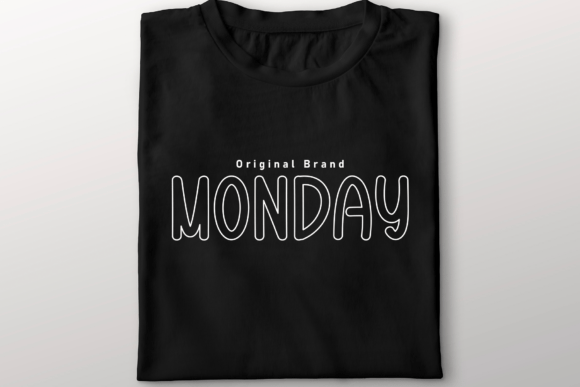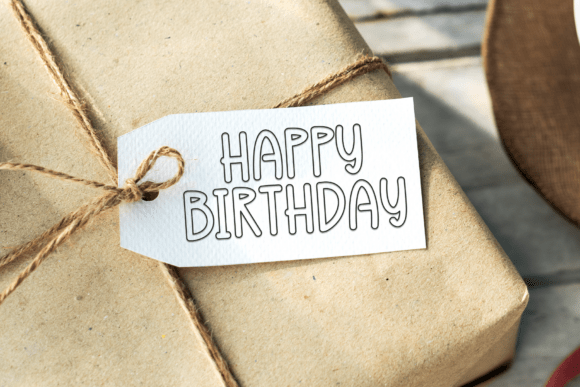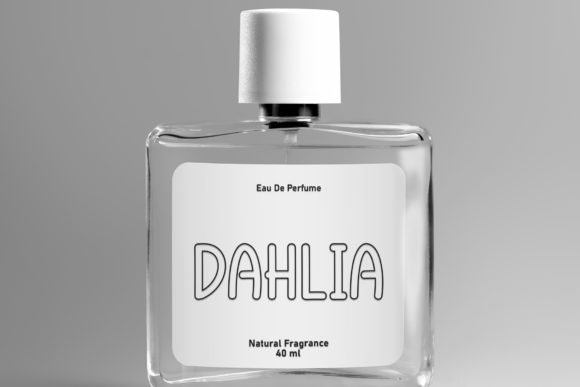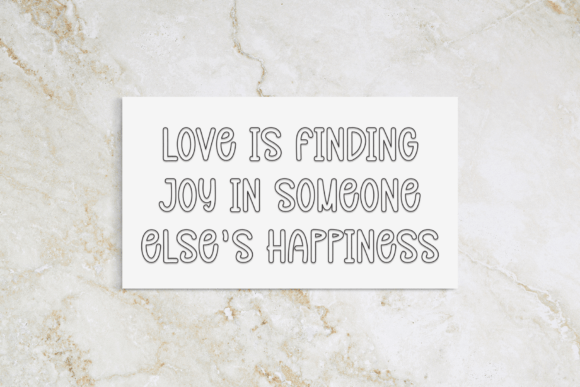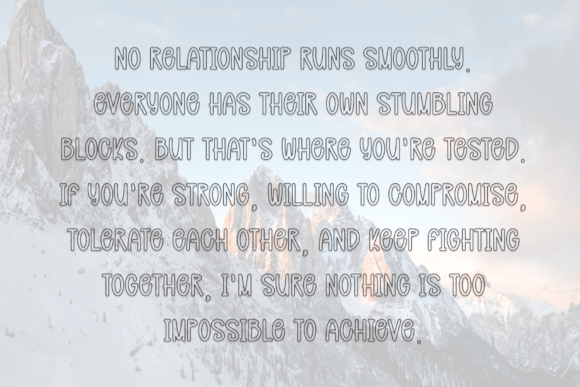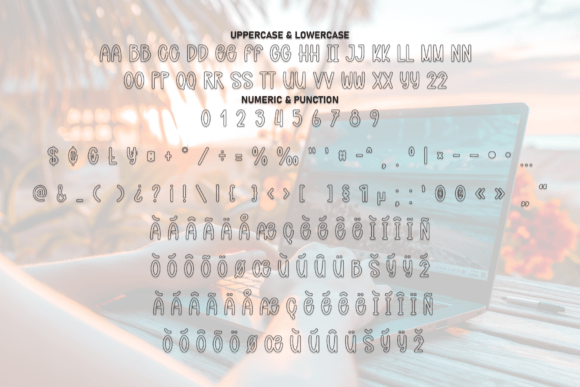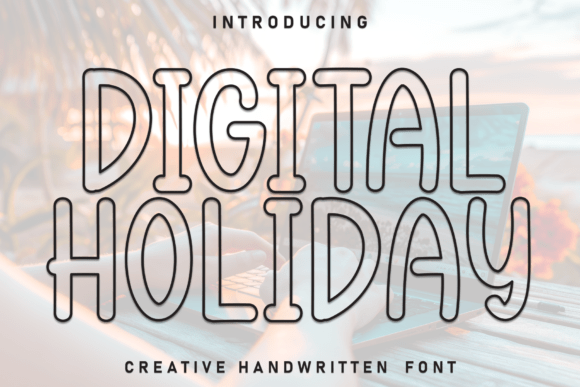
Introducing Sweet Handwritten Display: The Digital Holiday Font that Adds a Touch of Whimsy to Your Designs
Are you tired of using the same old fonts for your holiday designs? Do you want to add a touch of playfulness and user-friendliness to your projects? Look no further than Sweet Handwritten Display, a digital holiday font that is sure to captivate your audience. In this article, we’ll dive into the magnetic charm of Sweet Handwritten Display and explore how it can elevate your designs from ordinary to extraordinary.
The Beauty of Simplicity
Sweet Handwritten Display is a rare blend of playfulness and user-friendliness, crafted into a font that is both simple and elegant. Its simplicity blooms in every stroke and curve, making it the perfect choice for designers who want to add a touch of whimsy to their projects. Whether you’re creating wedded bliss invitations, holiday greetings, or any other project that requires a sprinkle of light-hearted charm, Sweet Handwritten Display is the perfect font for the job.
Radiating an Inviting Ambiance
One of the standout features of Sweet Handwritten Display is its ability to radiate an inviting and delightful ambiance. This font has a way of making your designs feel warm and welcoming, kindling riveting dialogues and leaving an enduring impression on your audience. Whether you’re designing for the holiday season or simply want to add a touch of personality to your projects, Sweet Handwritten Display is the perfect choice.
Empowering Your Designs
Sweet Handwritten Display is more than just a font – it’s a design tool that empowers you to create immersive pieces that engage and delight your audience. With its playful and user-friendly design, this font is perfect for designers who want to add a touch of personality to their projects. Whether you’re creating social media graphics, blog posts, or marketing materials, Sweet Handwritten Display is the perfect choice.
Perfect for Holiday Designs
The holiday season is just around the corner, and Sweet Handwritten Display is the perfect font for your holiday designs. Whether you’re creating Christmas cards, Thanksgiving invitations, or New Year’s Eve party flyers, this font is sure to add a touch of whimsy and fun to your projects. Its playful design and inviting ambiance make it the perfect choice for holiday designs that require a touch of personality.
Why Choose Sweet Handwritten Display?
So why choose Sweet Handwritten Display over other fonts? Here are just a few reasons why this font stands out:
- Unique and playful design: Sweet Handwritten Display has a unique and playful design that is sure to capture your audience’s attention.
- User-friendly: This font is easy to read and use, making it perfect for designers of all skill levels.
- Versatile: Sweet Handwritten Display can be used for a wide range of projects, from holiday designs to social media graphics.
- High-quality: This font is crafted with high-quality design principles, ensuring that it looks great in any project.
Tips for Using Sweet Handwritten Display
Here are a few tips for using Sweet Handwritten Display in your designs:
- Use it sparingly: While Sweet Handwritten Display is a beautiful font, it can be overwhelming if used too much. Use it sparingly to add a touch of personality to your designs.
- Pair it with other fonts: Sweet Handwritten Display pairs well with other fonts, such as sans-serif fonts. Experiment with different font combinations to find the perfect look for your project.
- Experiment with colors: Sweet Handwritten Display looks great in a variety of colors. Experiment with different colors to find the perfect look for your project.
In conclusion, Sweet Handwritten Display is a digital holiday font that is sure to add a touch of whimsy and fun to your designs. Its unique and playful design, user-friendly interface, and versatile nature make it the perfect choice for designers who want to create immersive pieces that engage and delight their audience. Whether you’re designing for the holiday season or simply want to add a touch of personality to your projects, Sweet Handwritten Display is the perfect font for the job.